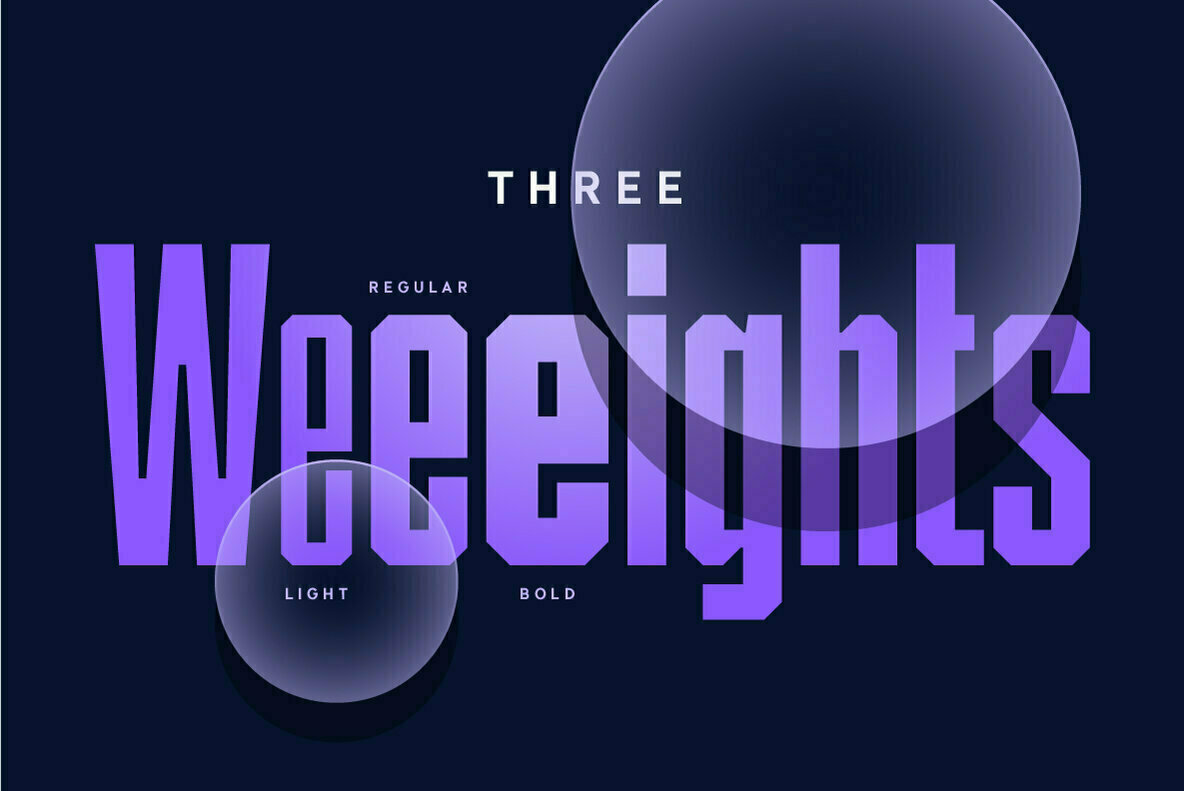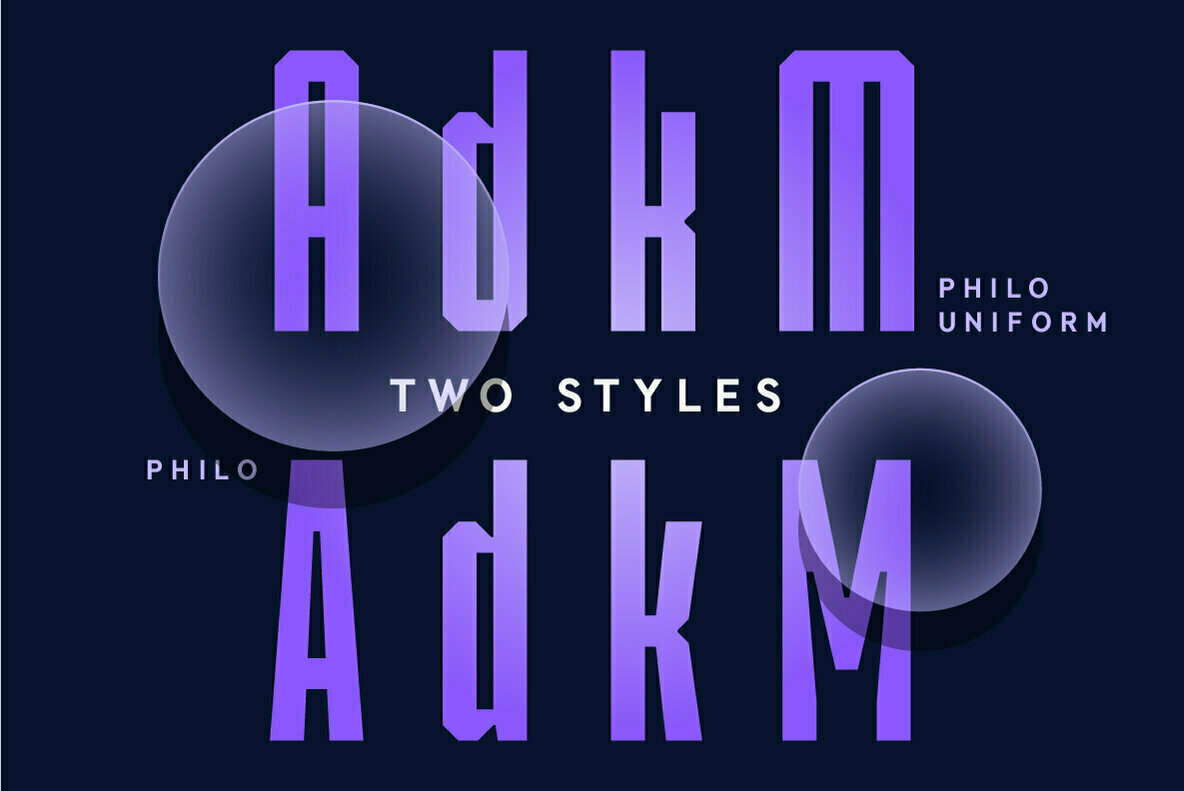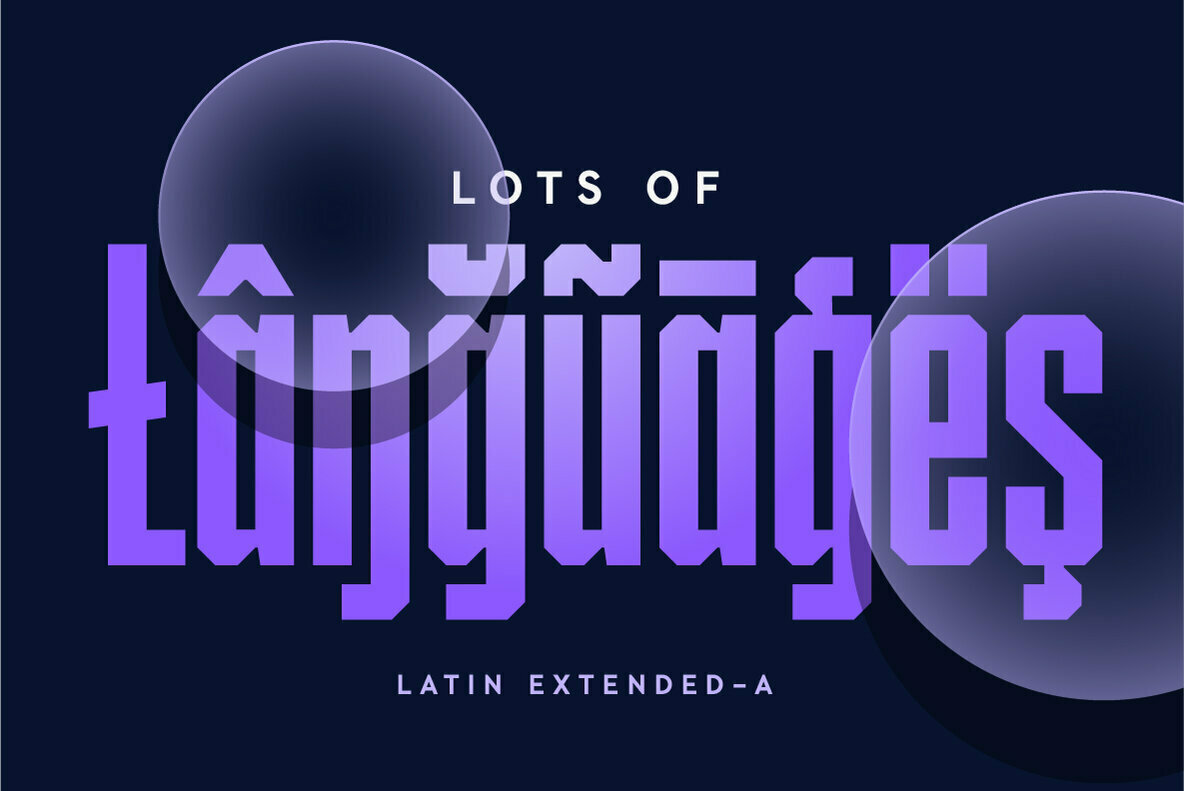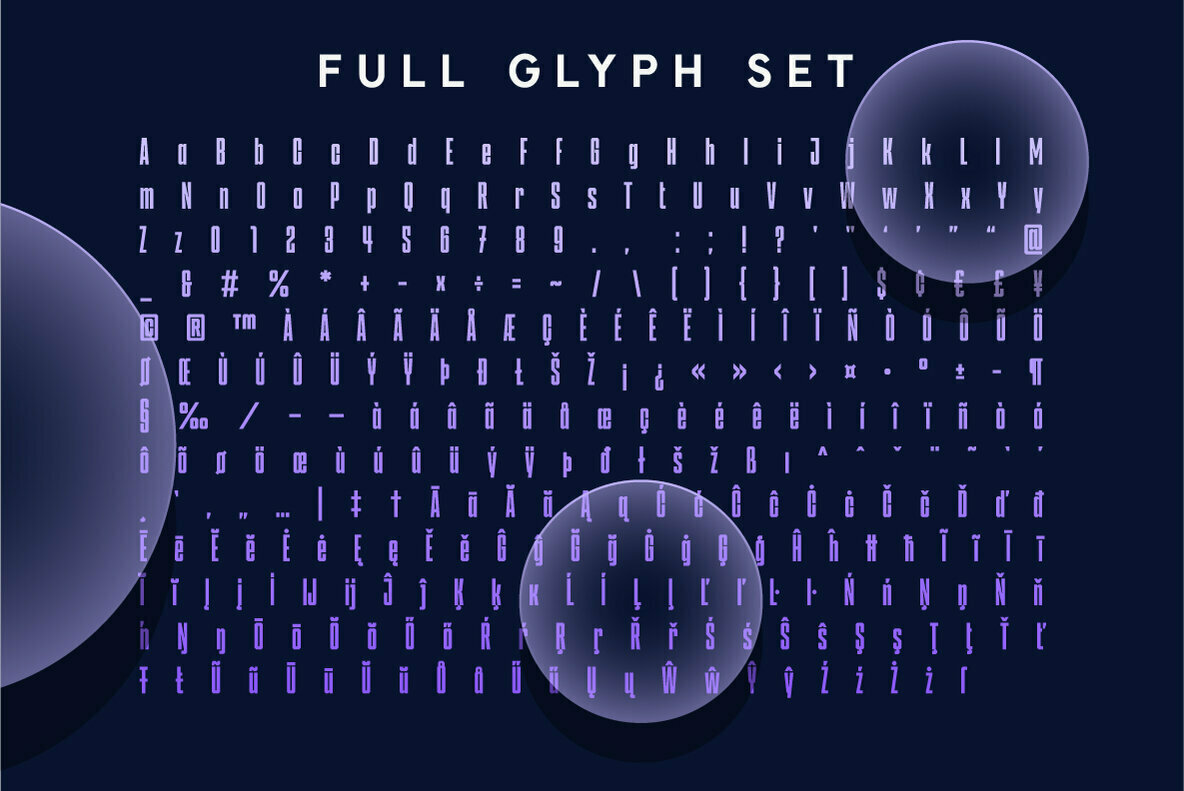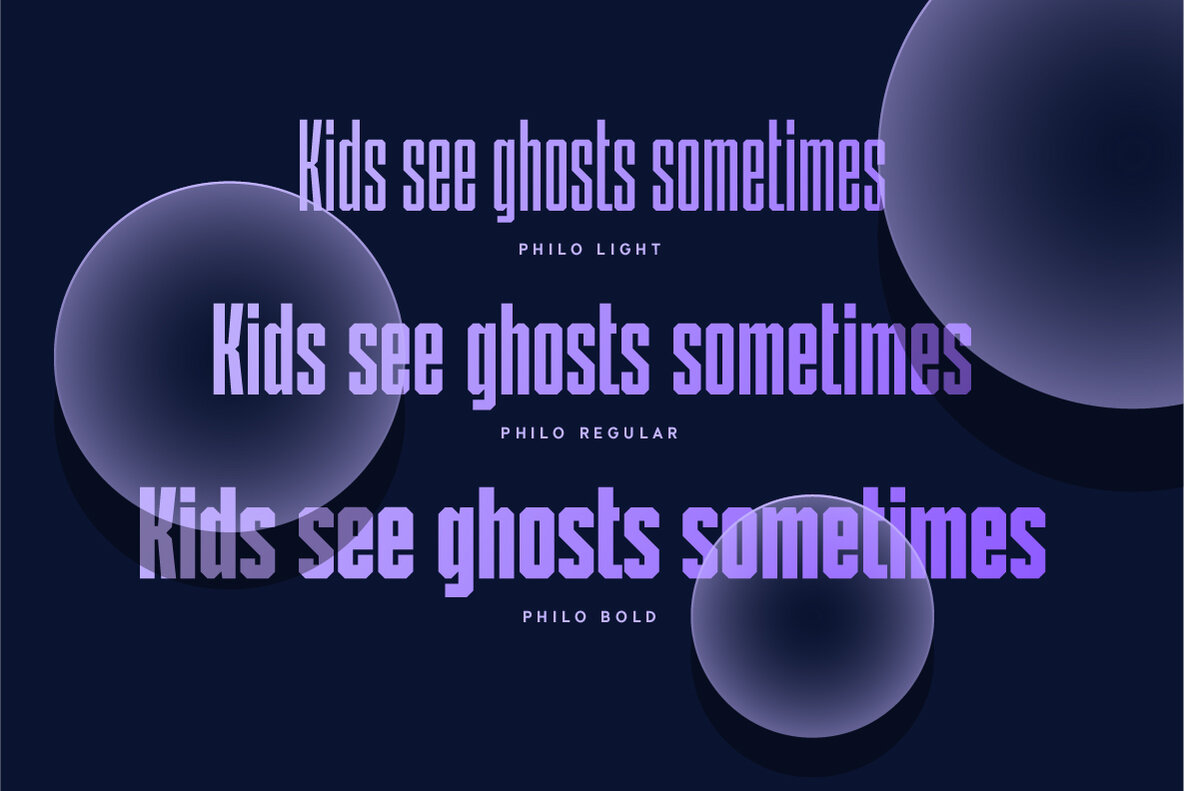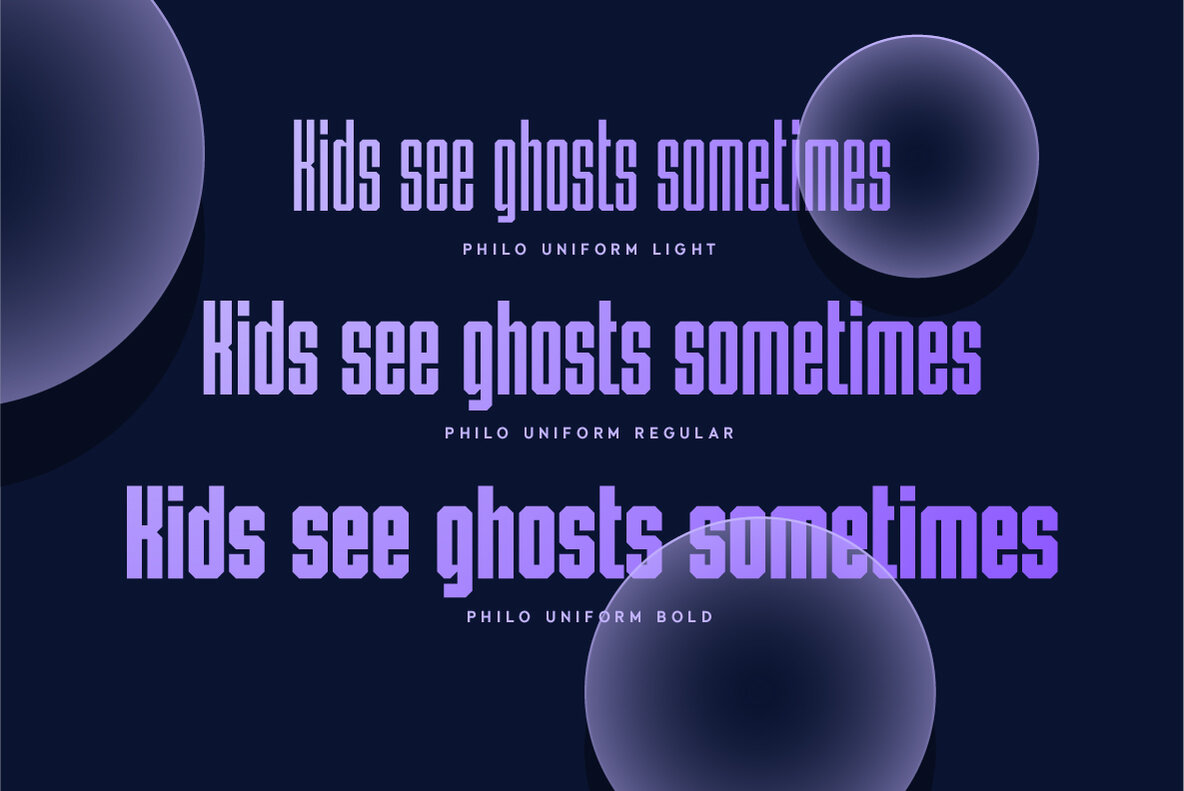
Philo Font
Philo is a bold condensed display typeface with a bold and athletic aesthetic. Inspired by sports jersey and branding fonts it has chamfered corners that give it a harsh but modern and athletic look. The x-height on the lowercase letters is set high to support the condensed look and making it easier to read.
Philo is best used for big Titles that demand attention with the ruggedness and bring out the nice details like the "ink traps".
Philo comes in three weights, two styles, 320+ glyphs, and supports a lot of languages (See complete glyph set on top).